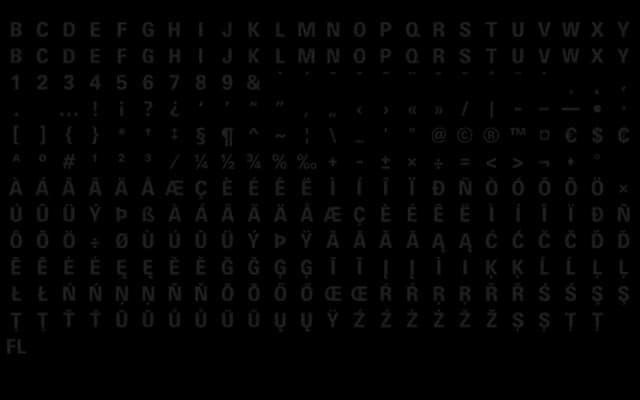
Correspondance
A single-weight, uppercase-only grotesque reconstructed from memory after Adrian Frutiger's typeface for the Paris Métro signage system.
Designed by Radim Pesko as a mnemonic reconstruction rather than a forensic revival, it draws on Frutiger's lettering for the Paris Métro without attempting strict historical fidelity. Available in one weight with alternate characters, it is capitals only and best suited to headline and display settings. Its use on Le Monde headlines gives a sense of its register: clean, authoritative and rooted in European public-space typography.
A memory-reconstruction of Adrian Frutiger's Parisian Metro signage typeface, placing it squarely in the grotesque sans-serif tradition associated with mid-century European signage and wayfinding.